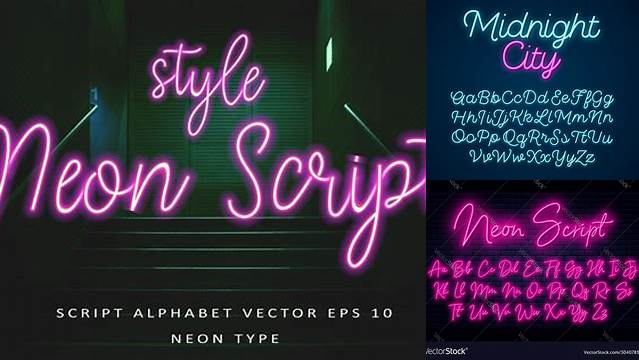
Neon Sign Script Font: Free Download For Your Designs
Hey guys! Looking to add some vibrant flair to your projects? A neon sign script font is just what you need. These fonts mimic the glowing, slightly imperfect look of real neon signs, giving your designs a retro and eye-catching vibe. Finding the right font can be a game-changer, so let’s dive into everything you need to know about neon sign script fonts and where to snag them for free!
1. Understanding Neon Sign Script Fonts
So, what exactly makes a font a neon sign script font? It's all about capturing that electric glow and handcrafted feel. These fonts often feature rounded terminals, slight breaks in the lines, and a cursive or script style to mirror the bends and curves of actual neon tubes. Imagine the classic diner signs or vintage movie posters – that's the aesthetic we're aiming for! Using a neon sign script font is perfect for posters, social media graphics, and even website headers. They bring an instant touch of nostalgia and cool. The best fonts in this category often incorporate a subtle texture to further mimic the imperfections of real neon. The trick is to find fonts that balance readability with a distinctive neon look. Play around with different options until you find the one that sings to you.
2. The Appeal of Free Neon Script Fonts
4. Using Neon Fonts in Graphic Design
So, you’ve downloaded your neon font – now what? It’s time to unleash its potential in your graphic designs. Neon sign script fonts work exceptionally well in posters, flyers, and social media graphics. Consider using them to create eye-catching headlines or to add a retro touch to your designs. When using neon fonts, pay attention to the color palette. Bright, vibrant colors like pink, blue, and yellow are classic choices that complement the neon aesthetic. Experiment with different background colors to see what works best. Dark backgrounds often make neon fonts pop even more. Also, think about adding subtle effects like glows or shadows to further enhance the neon effect. With a little creativity, you can transform your designs into stunning works of art.
5. Neon Font for Branding
Believe it or not, neon font can actually be a great way to promote and showoff your branding. If your brand has a retro, edgy, or fun vibe, a neon script font could be the perfect choice for your logo and marketing materials. Imagine a neon-style logo for a burger joint, a bar, or a retro clothing store. It instantly communicates a sense of nostalgia and coolness. However, it's important to use neon fonts strategically. They might not be suitable for every type of brand. If your brand is more corporate or formal, a neon font could come across as unprofessional. Consider your target audience and the overall message you want to convey. When used correctly, a neon font can make your brand stand out and create a memorable impression.
6. Web Design with Neon Script
Web design is another place neon script can make a huge impact. Adding neon script fonts to your website can create a visually striking and engaging experience for visitors. Consider using them for headings, banners, or calls to action. A neon script font can help draw attention to important elements on your page and make your website more memorable. However, it's crucial to use neon fonts sparingly in web design. Too much neon can be overwhelming and make your website look cluttered. Focus on using neon fonts strategically to highlight key areas and create a sense of visual hierarchy. Also, ensure that your chosen neon font is legible on different devices and screen sizes.
7. Neon Fonts in Logo Design
As we briefly touched on earlier, neon fonts in logo design can be awesome! A neon script font can give your logo a unique and eye-catching look. It's particularly effective for businesses that want to convey a retro, edgy, or fun vibe. A neon logo can help your brand stand out from the competition and create a lasting impression. When designing a neon logo, it's important to keep it simple and memorable. Choose a neon font that is easy to read and works well in different sizes. Also, consider the colors you use in your logo. Bright, vibrant colors are classic choices for neon designs. Remember to test your logo on different backgrounds and in various formats to ensure it looks great in all situations.
8. Neon Font for Social Media
For social media, you need something eye-catching, and a neon font does just that. Using neon script fonts in your social media graphics can significantly boost engagement. These fonts are perfect for creating eye-catching headlines, promotional banners, and engaging content that stands out in a crowded feed. When designing social media content with neon fonts, keep your target audience in mind. Neon fonts tend to resonate well with younger audiences and those who appreciate a retro or edgy aesthetic. Experiment with different color combinations and background images to create visually appealing graphics. Also, consider using neon fonts in animated posts or videos to further capture attention.
9. Pairing Neon Fonts with Other Fonts
Using neon fonts with other fonts can really give it an extra flare. While neon fonts are attention-grabbing, they shouldn't always be used alone. Pairing them with simpler, more readable fonts can create a balanced and visually appealing design. Consider using a neon font for headlines and a sans-serif font for body text. This combination ensures that your message is both eye-catching and easy to read. When pairing neon fonts with other fonts, pay attention to the overall aesthetic. Choose fonts that complement the neon style and enhance the overall design. Experiment with different font pairings until you find a combination that works well for your project.
So there you have it, guys! Everything you need to know about neon sign script fonts and how to use them to create stunning designs. Go forth and make some magic happen!